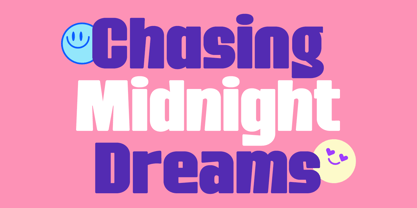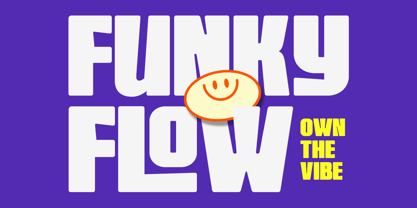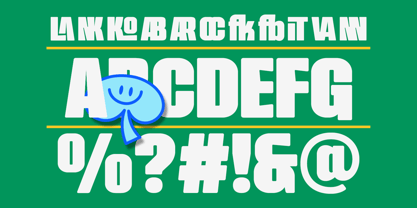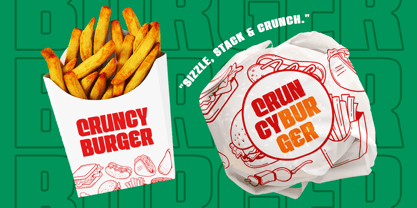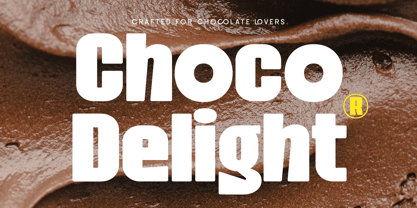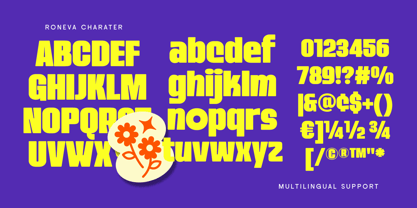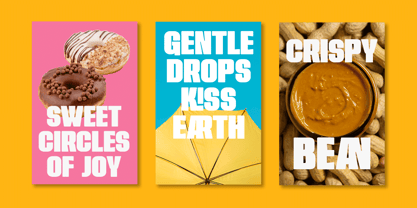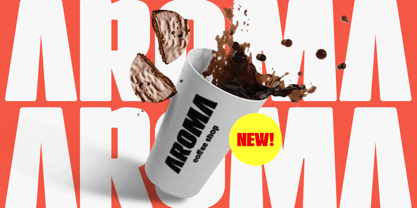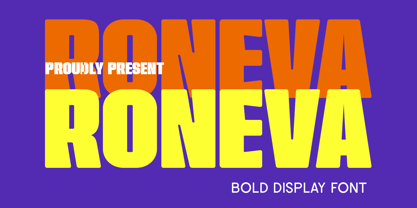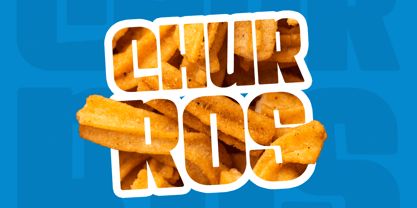
Roneva
The Roneva Font Family was designed by Ahmad Ramzi Fahruddin and published by Arterfak Project. Roneva contains 1 styles. More about this family
Bring playful rhythm and bold character into your designs with Roneva — a condensed sans serif crafted in a funky style full of personality. With its chunky letterforms, groovy curves, and energetic flow, this typeface is perfect for projects that need to stand out with confidence and fun vibes.
Roneva is more than just a font — it’s a vibe. Its bold, tall letterforms combined with distinctive alternates and playful ligatures make every word pop, giving your message a unique rhythm and expressive voice.
Perfect for posters, logos, branding, packaging, social media graphics, and headlines, Roneva delivers a retro-inspired style that grabs attention instantly. Add it to your creative toolkit and let your designs groove with style!
- Uppercase & lowercase
- Numbers & punctuation
- Multilingual support
- Stylistic alternates & ligatures